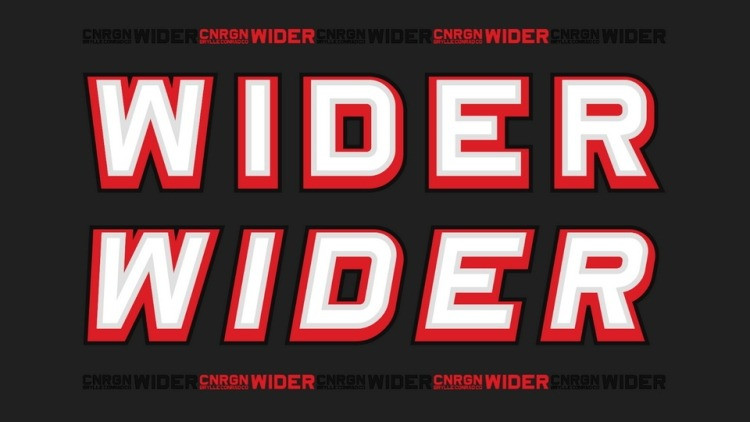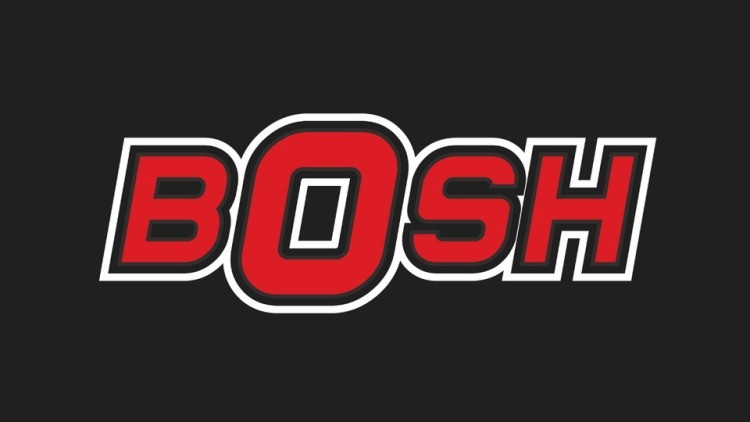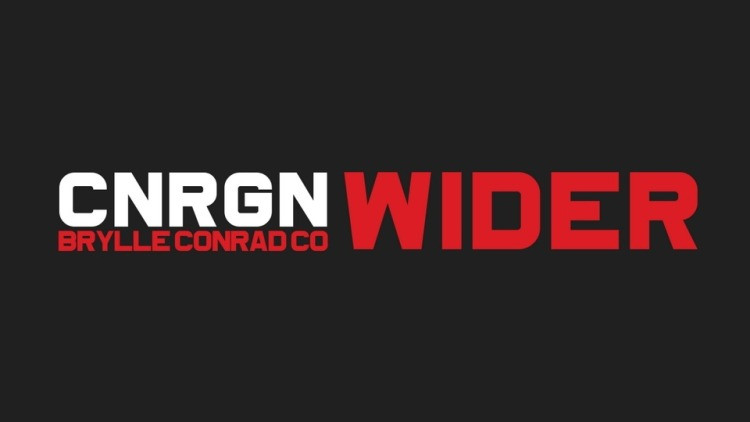
CNRGN Wider Font is a bold and blocky sans display font. With its strong and sporty personality the font is made for secondary text, perfect for posters, headlines and impact messages.
CNRGN Wider Font
| Designer Name: | Brylle Conrad Co |
| Classification: | Display Fonts, Sans Serif Fonts |